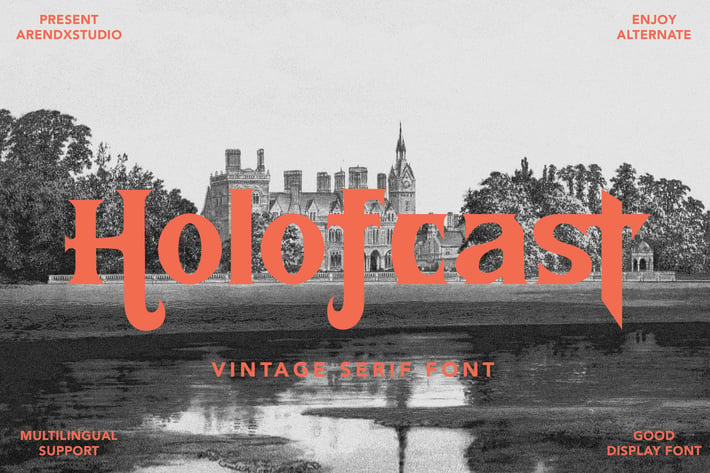
Holofcast - Vintage Serif Font
Introducing my new font - Holofcast
Holofcast is a modern Serif with a very unique alternate
Holofcast came with opentype features such stylistic alternates, stylistic sets & ligatures good for logotype, poster, badge, book cover, tshirt design, packaging and any more.